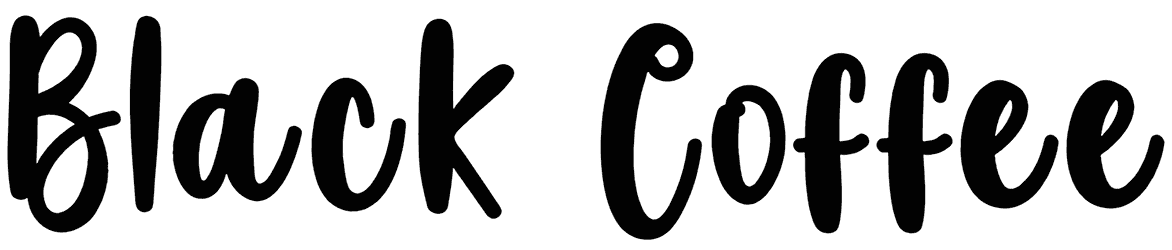
Black Coffee Font
Black Coffee, which belongs to the coffee fonts, may be used for a variety of purposes, such as posters, party invitations, clothing, and decorations. It’s also possible that the attached, adorable font was specifically selected to pique the interest of the targeted consumers.